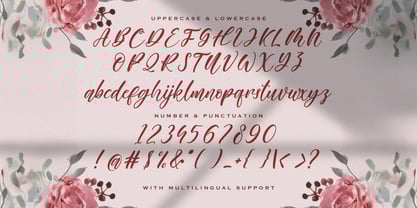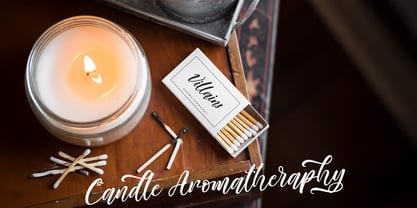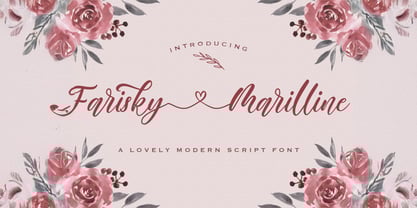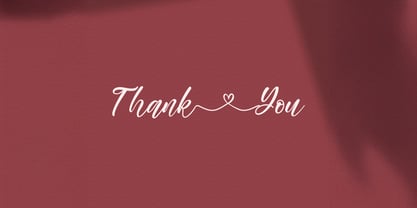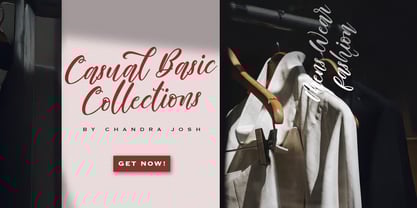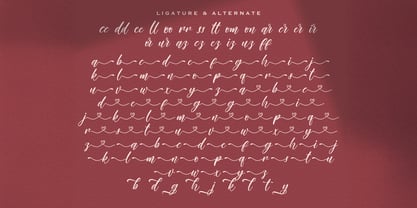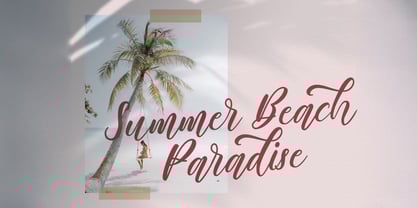
Farisky Marlline
by Stringlabs Creative Studio
The Farisky Marlline Font Family was designed by Virgiawan Listanto and published by Stringlabs Creative Studio. Farisky Marlline contains 1 styles. More about this family
Farisky Marlline is a lovely calligraphy font that brings timeless beauty and romantic elegance to every letter. With its flowing curves, delicate flourishes, and smooth stroke contrast, Farisky Marlline captures the art of handwritten calligraphy in a modern and enchanting form. Every character is carefully crafted to create a natural, graceful rhythm ideal for both display and script-style layouts.
Designers: Virgiawan Listanto
Foundry: Stringlabs Creative Studio